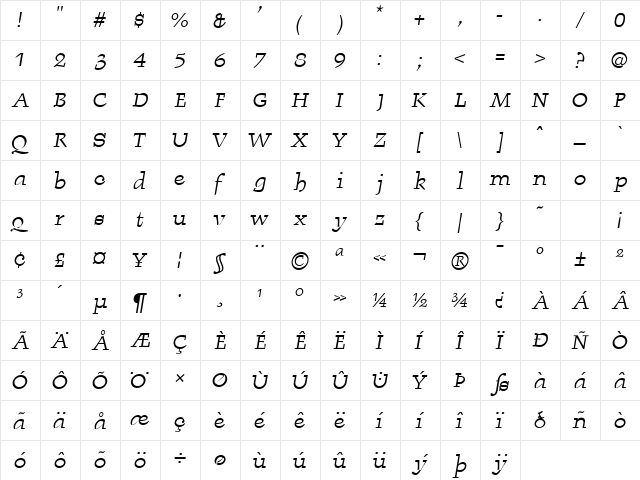
BurgstaedtAntiqua LT Std Italic Regular Font Preview
| Foundry | Linotype Library GmbH |
| Designer | Richard Yeend |
Design Context for BurgstaedtAntiqua LT Std Italic Typeface
BurgstaedtAntiqua LT Std Italic takes a measured approach to typography — its balanced proportions and neutral character make it a reliable workhorse for both digital and print work. The slanted form adds forward momentum and visual energy. The delicate stroke weight brings airiness and refinement to layouts.